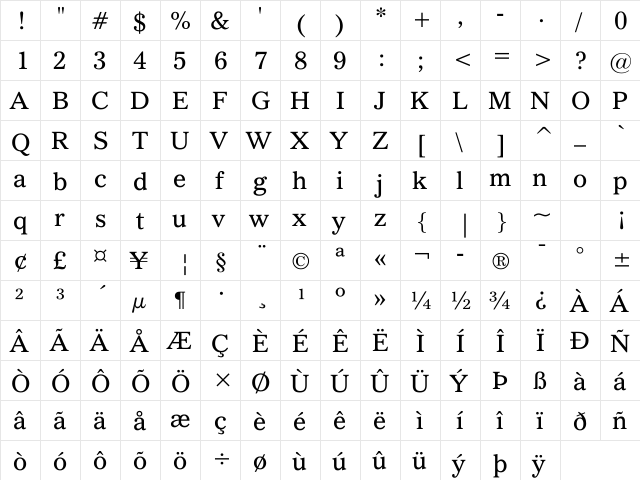
Aquazoon Regular
Design Context for Aquazoon Typeface
Aquazoon takes a measured approach to typography — its balanced proportions and neutral character make it a reliable workhorse for both digital and print work.